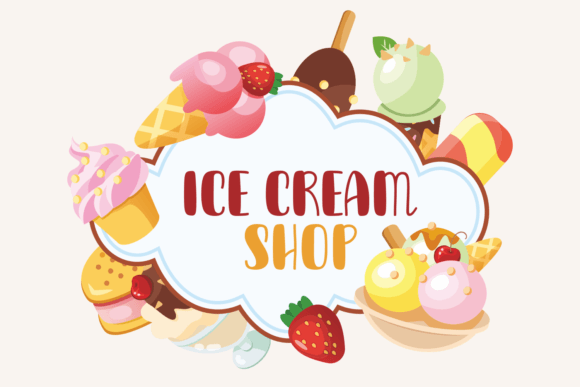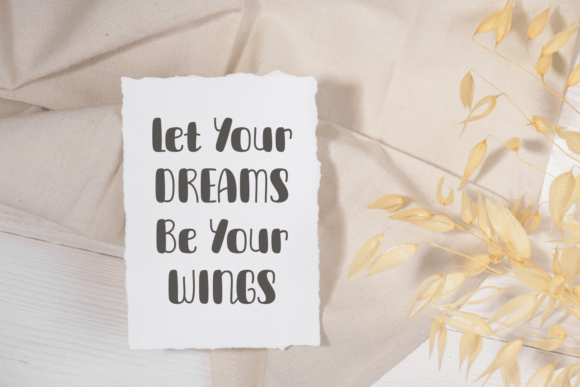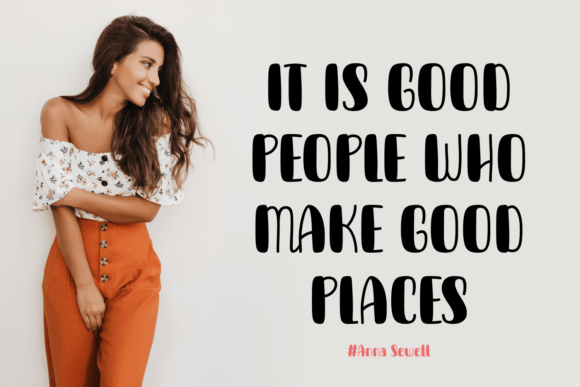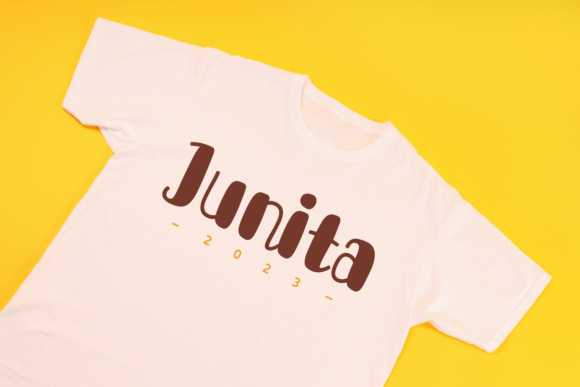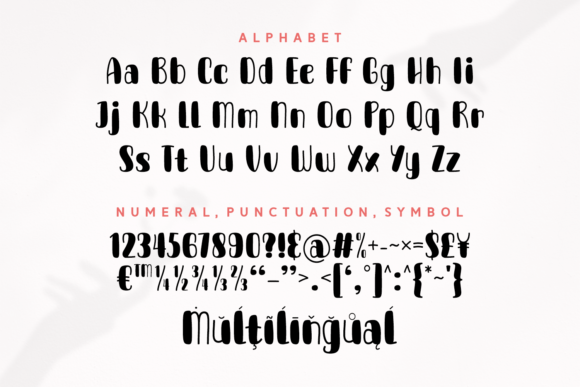
Introduction to Calvine Monika Font
Calvine Monika is a beautiful and unique handwritten font.
This typeface combines thick and thin lines to create a stylish aesthetic that will make any creation stand out Add it to your library and use it in your next creative project.
Key Features of Calvine Monika Font